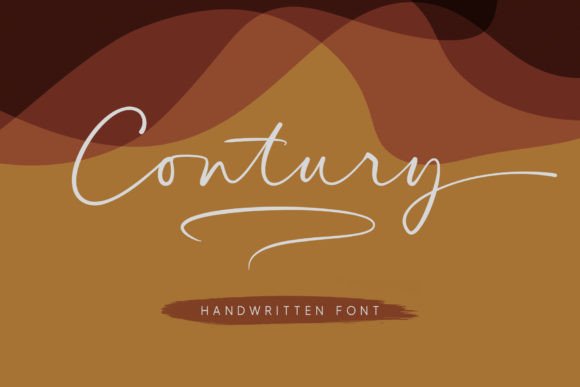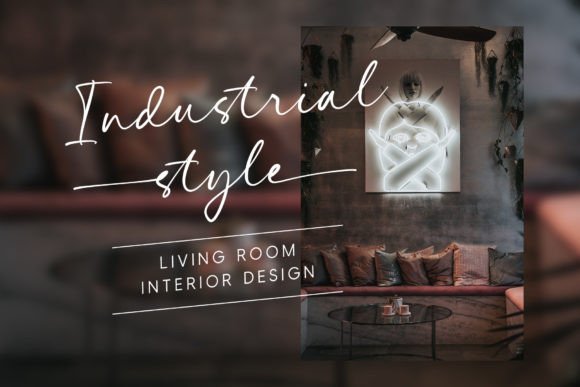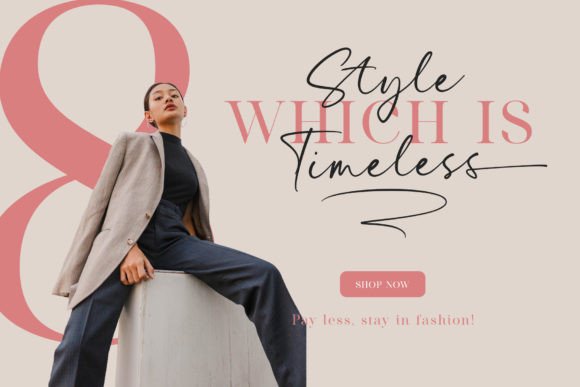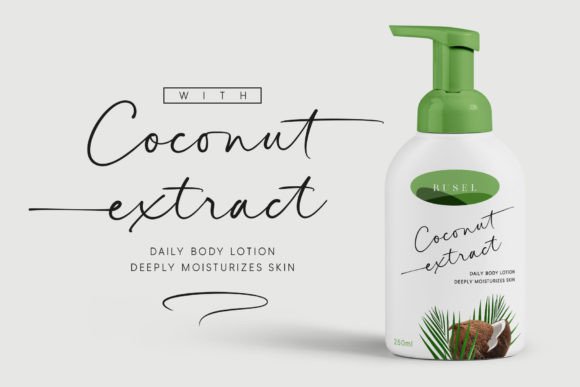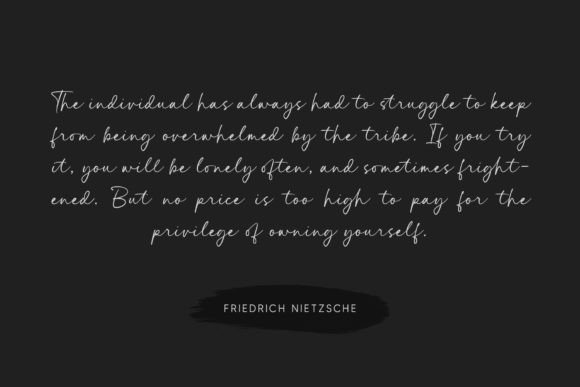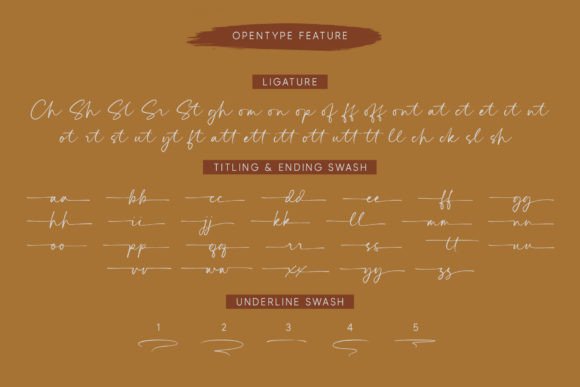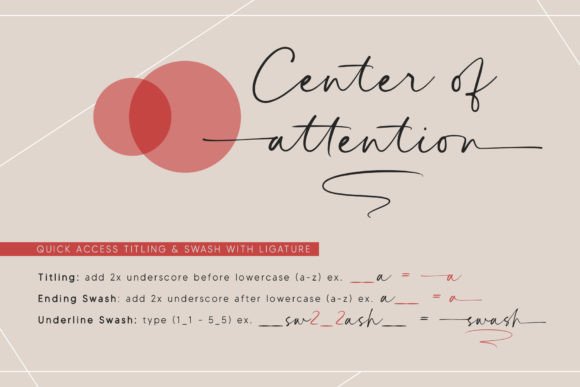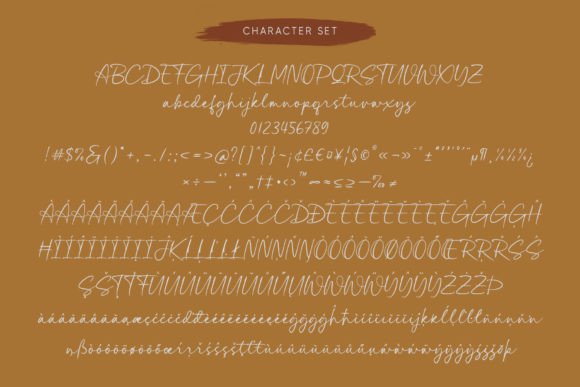
Contury Font
About Contury Font
Introducing Contury, an elegant handwritten font with a unique feel and a stunning impact. This typeface is designed to bring a touch of luxury to your design projects, making it a perfect choice for various applications, including logos and branding, invitations, wedding designs, advertisements, product packaging, product designs, labels, and more.
The unique and elegant characteristics of Contury make it stand out, adding a luxurious spark to any design project. Whether you’re working on branding materials, invitations, or product packaging, this font contributes to a sense of sophistication and refinement.
In the realm of logos and branding, Contury becomes a defining element that sets your brand apart. Its elegant script creates a memorable visual identity, making your logo exude luxury and style.
For wedding designs, Contury adds a touch of romance and elegance to invitations and other materials. Its handwritten charm brings a personal and refined look to wedding-related projects.
In advertisements and product packaging, Contury contributes to a visually pleasing layout. The luxurious spark it adds enhances the overall aesthetics, making your products or promotional materials more captivating.
The versatility of Contury ensures that it can adapt to various design contexts, making it a valuable tool for a range of creative projects.
In summary, Contury is more than just a font; it’s a creative tool designed to bring elegance, uniqueness, and luxury to your projects. Whether you’re working on branding, invitations, or product designs, let Contury be the font that adds a touch of sophistication and refinement to your creative endeavors.